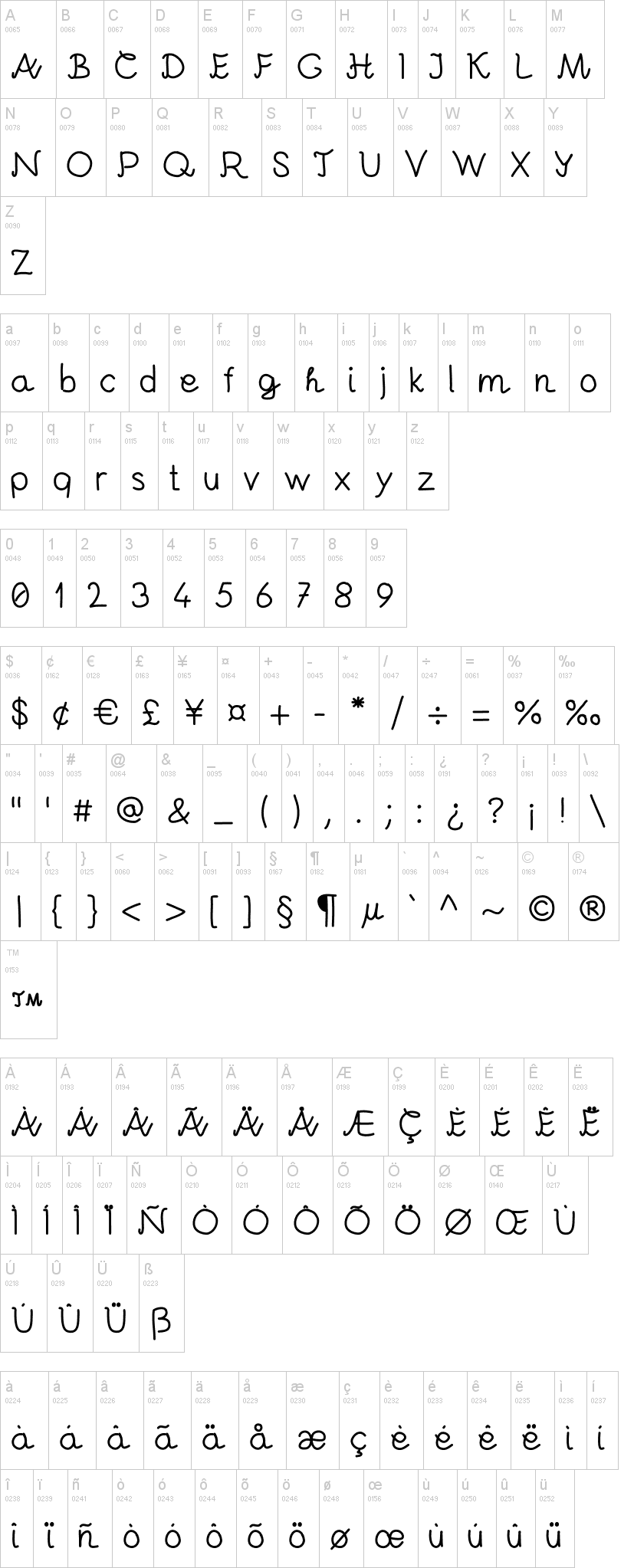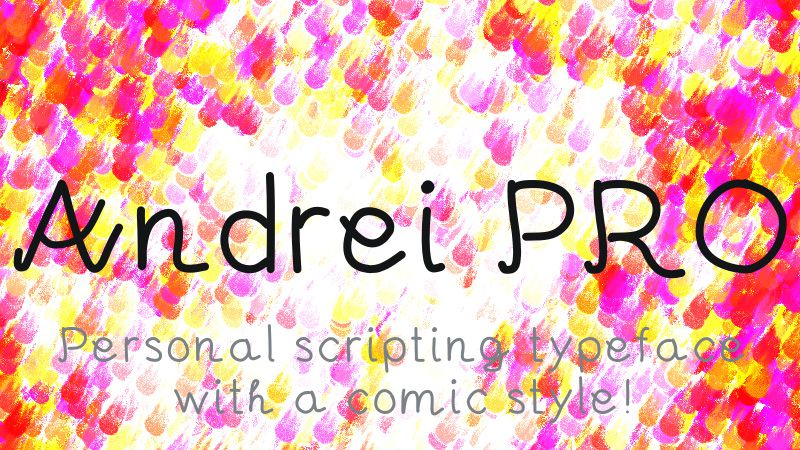
Шрифт Andrei
Andrei Pro font is a comic like handwriting type that can be use to give a personal touch to your prints.
It is also the professional version of the previously released Andrei font, and brings a lot of new glyphs and many improvements over the older version.